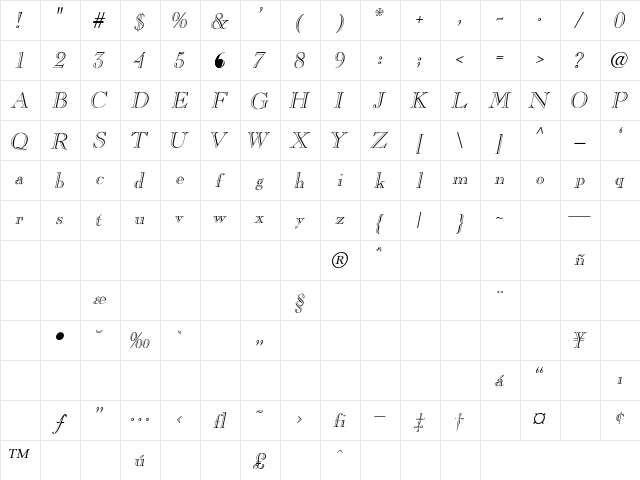
Caslowe_OpenFaI Regular
Design Context for Caslowe_OpenFaI Typeface
Caslowe_OpenFaI takes a measured approach to typography — its balanced proportions and neutral character make it a reliable workhorse for both digital and print work.